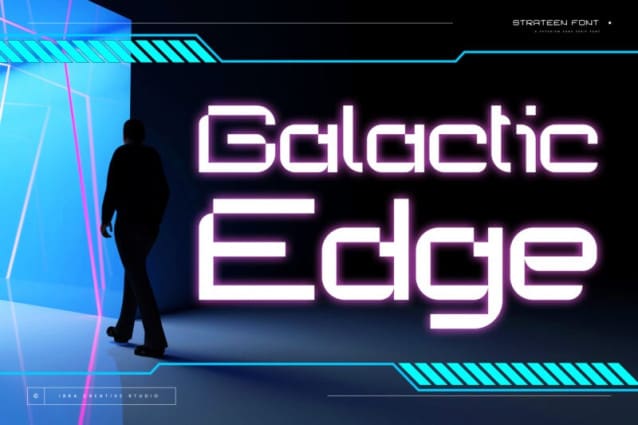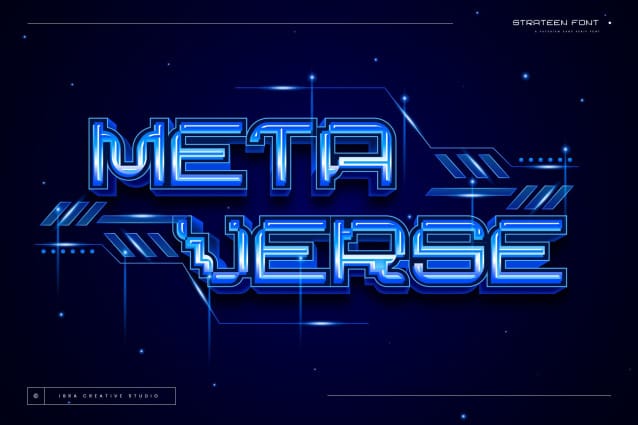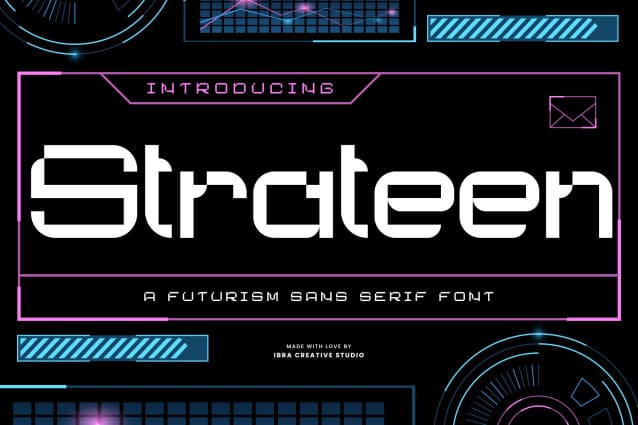
Strateen Futuristic Font
Strateen Futuristic Font, a Futurism Sans Serif font, encapsulates the essence of contemporary design with its sleek and progressive aesthetic. Its clean, geometric lines and minimalistic strokes evoke a sense of modernity, making it ideal for projects that seek a futuristic and cutting-edge look. The typeface’s letterforms boast a harmonious balance between simplicity and sophistication, enhancing legibility while maintaining a distinctive personality. Strateen’s sans serif nature contributes to its versatility, enabling seamless integration across various mediums, from digital interfaces to print materials. The font’s forward-thinking design not only aligns with the visual trends of the future but also ensures a timeless appeal, making Strateen a compelling choice for those in pursuit of a dynamic and forward-looking typographic solution.